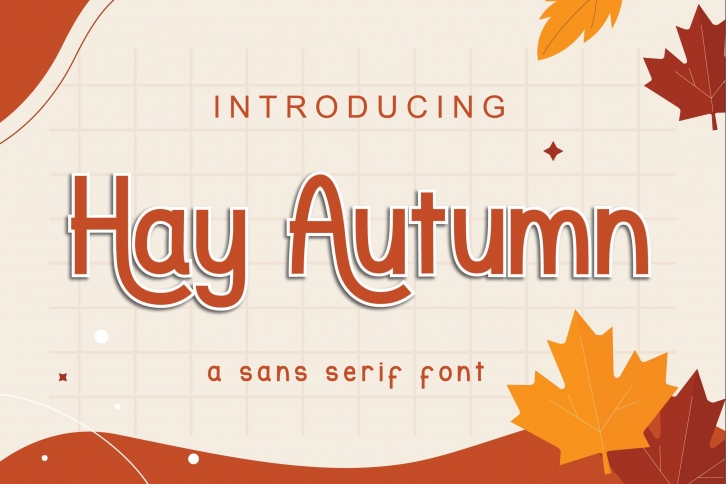
Hay Autumn is a casual and cool display font. No matter the topic, this font will be an incredible asset to your fonts’ library, as it has the potential to elevate any creation.Â